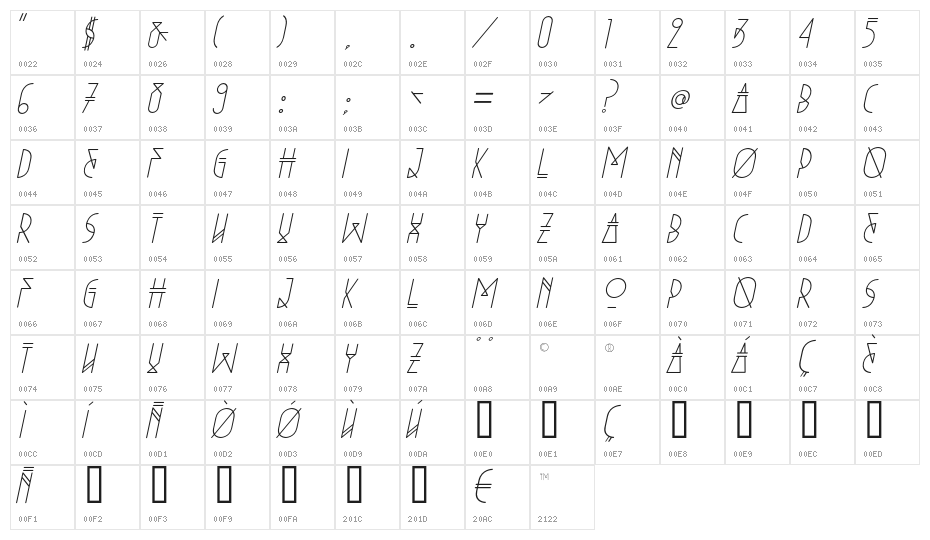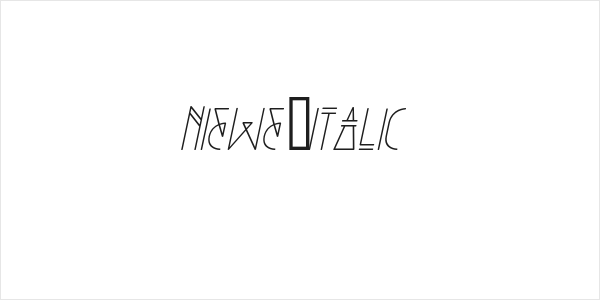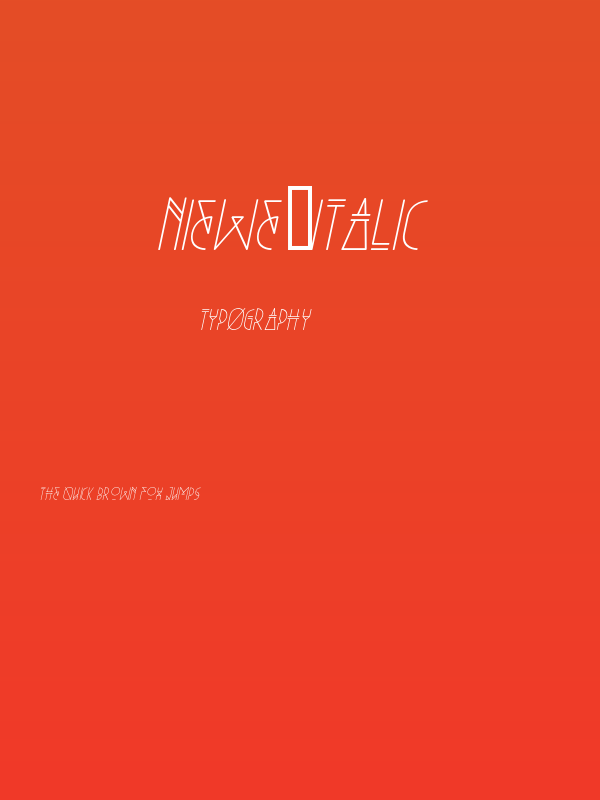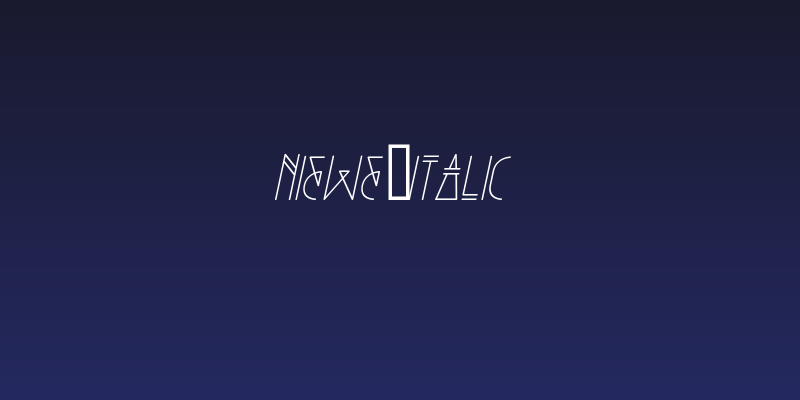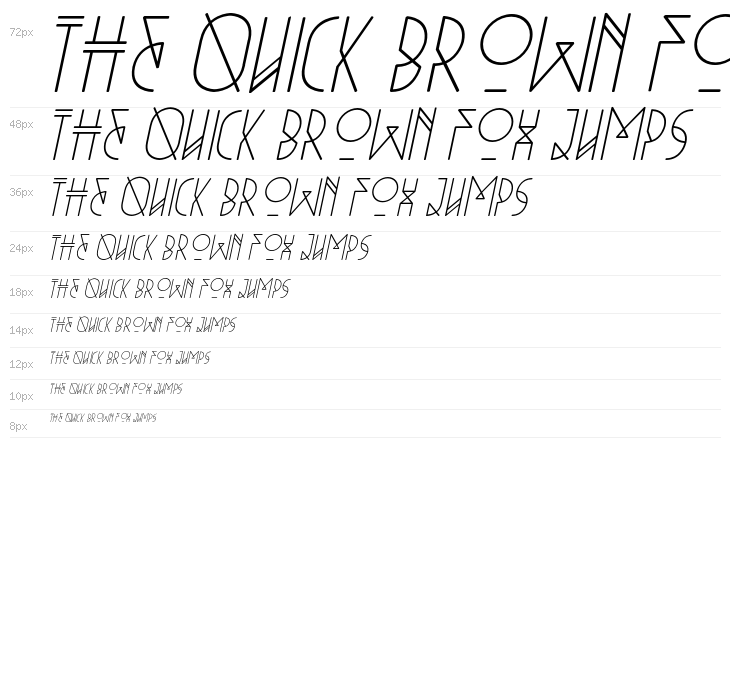
Niewe-Italic Font
Niewe-Italic Description
This font features a unique, geometric style with a modern twist. The characters are composed of straight lines and sharp angles, creating a futuristic and abstract appearance. The uppercase and lowercase letters share a consistent design, with some characters incorporating triangular elements, adding to the font's distinctiveness. The numbers follow the same angular and linear theme, ensuring uniformity across the character set. The special characters are designed to match the overall aesthetic, making this font suitable for creative and artistic projects. Its sleek and minimalistic design is eye-catching and versatile.
| Use Case | Logos, Posters, Digital Art |
| Proposed Projects | Ideal for branding, logos, posters, and digital art projects that require a modern and edgy look. |